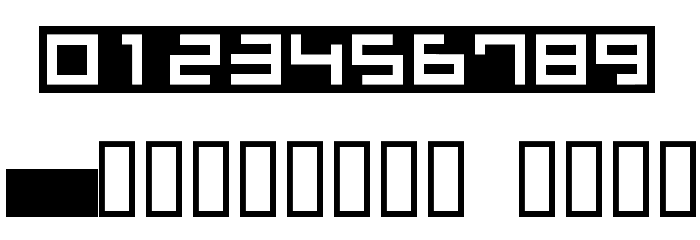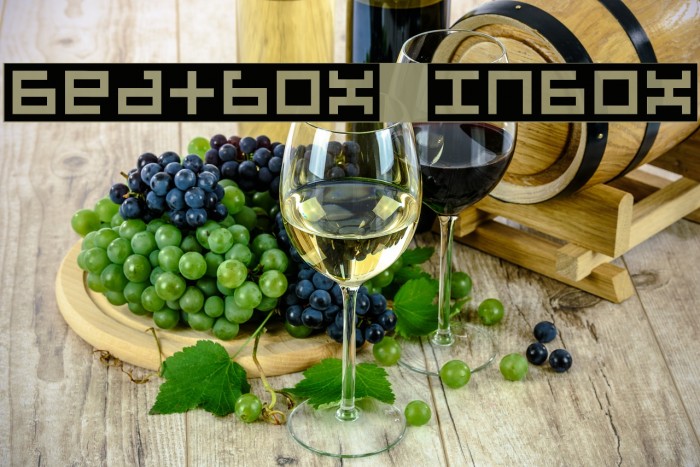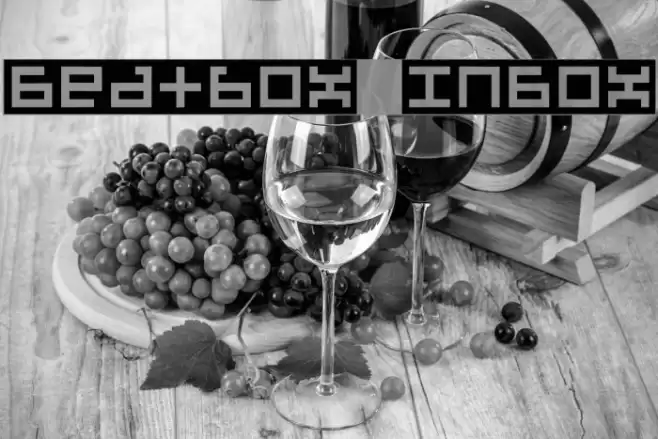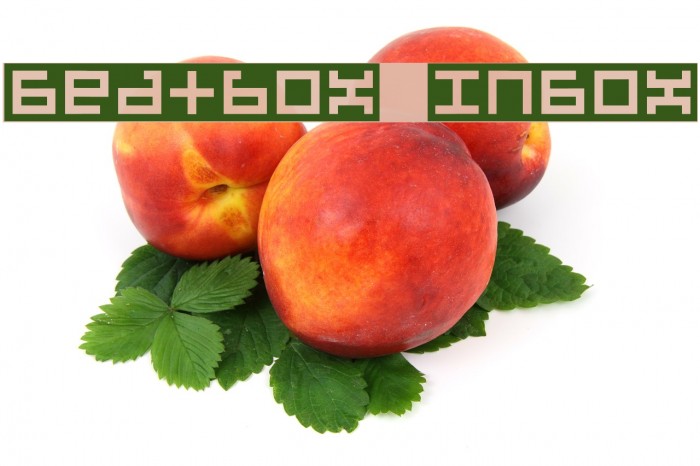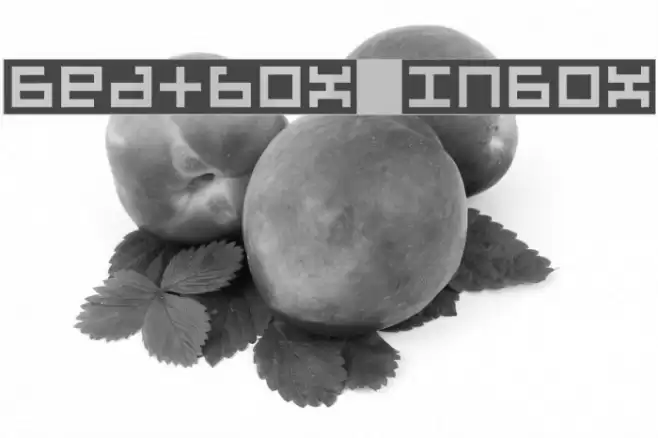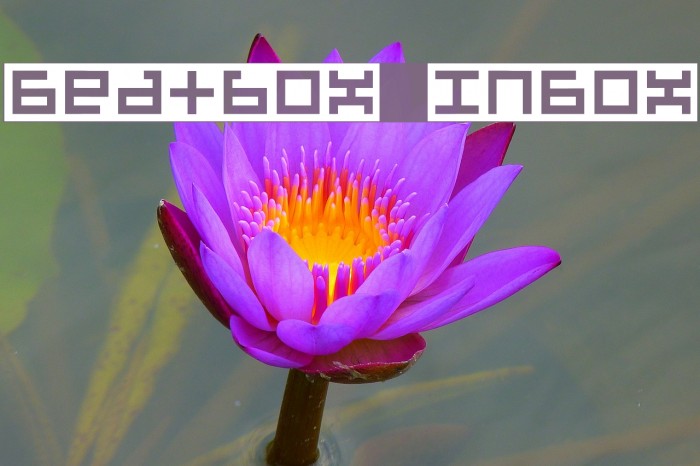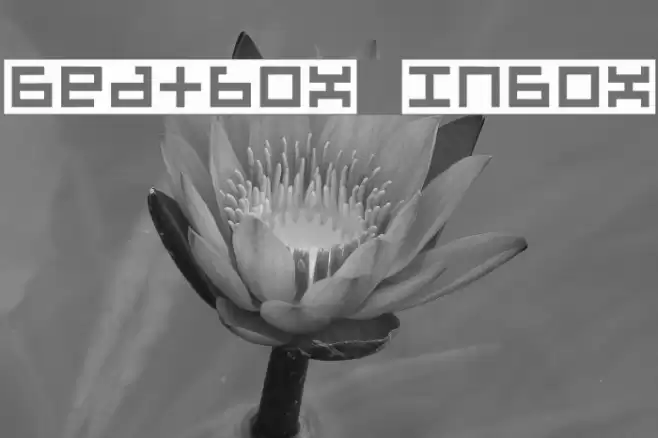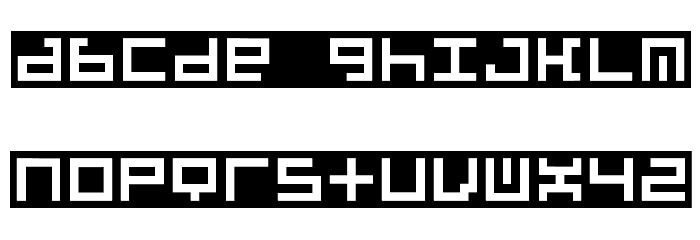
Beatbox InBox Font
Beatbox InBox Description
This font features a bold, geometric design with a strong emphasis on rectangular shapes and sharp angles. The characters are enclosed within a solid black rectangular background, creating a striking contrast with the white, blocky letters. The style is reminiscent of digital or electronic displays, with a futuristic and modern aesthetic. The uppercase and lowercase letters maintain a consistent height, contributing to a uniform appearance. Numbers and special characters are designed in the same bold, geometric style, ensuring visual cohesion across all elements.
| Proposed Projects | Ideal for digital interfaces, tech-themed posters, video game graphics, and modern branding projects. |